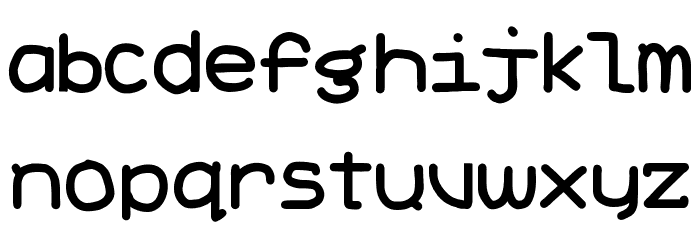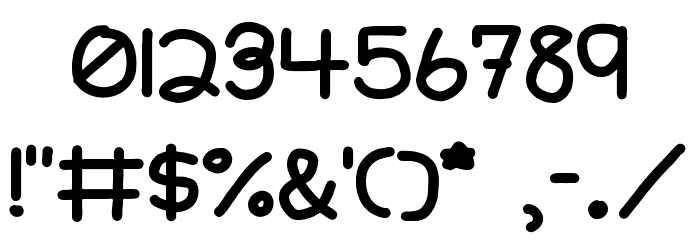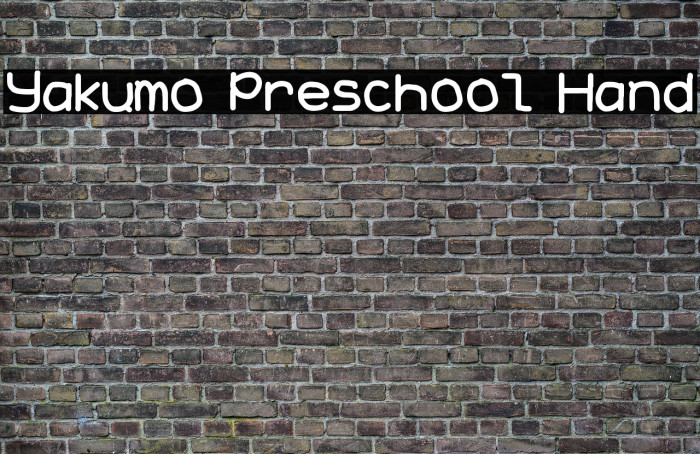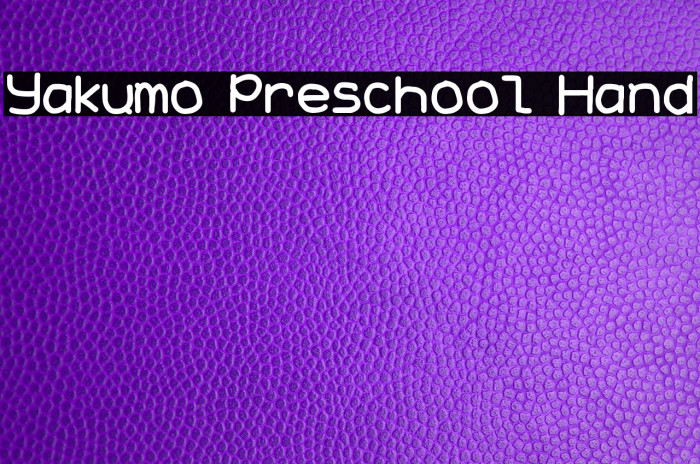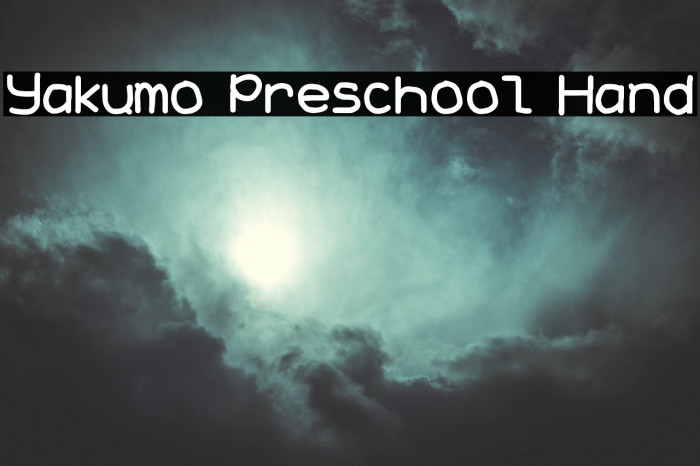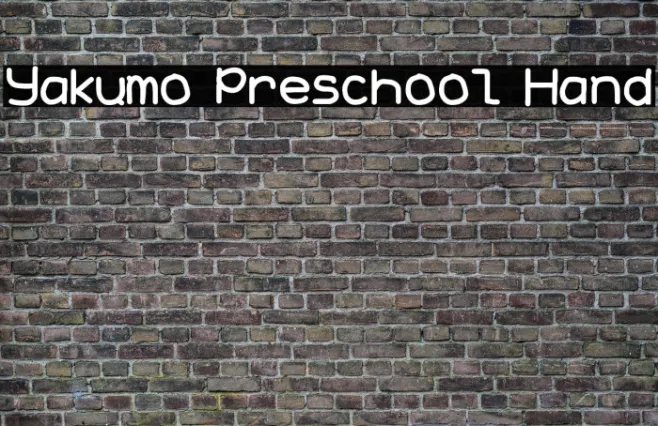
Yakumo Preschool Hand Font
This playful and rounded font exudes a friendly and approachable vibe, reminiscent of handwriting with a childlike charm. The characters are evenly spaced with a consistent stroke width, giving it a balanced and harmonious appearance. The rounded edges and slightly irregular shapes contribute to its whimsical and informal style, making it ideal for projects that require a touch of fun and creativity. The font maintains legibility while offering a unique personality, suitable for educational materials, children's books, or playful branding.
A playful, rounded font with a childlike charm and friendly vibe.
- Proposed Projects: Ideal for children's books, educational materials, playful branding, and creative projects.
- Overall Style: Playful, Whimsical
- Use Case: Headlines, Logos, Educational materials